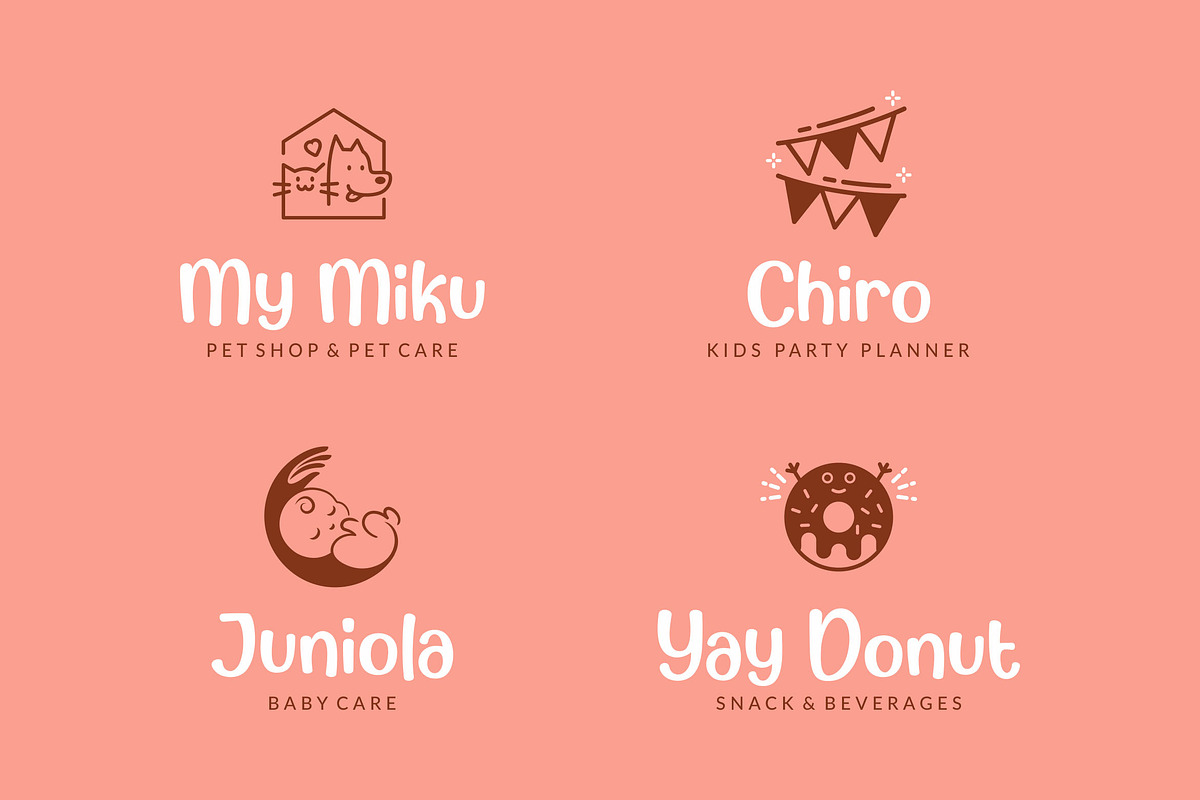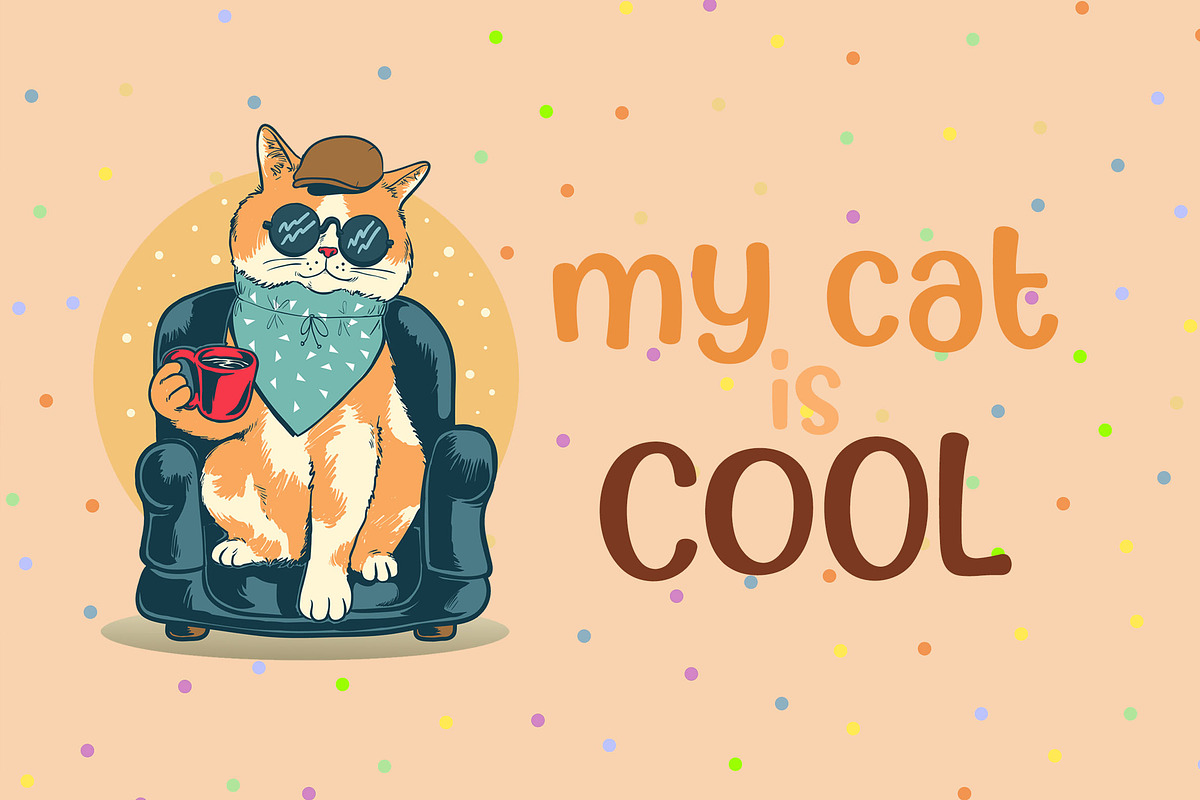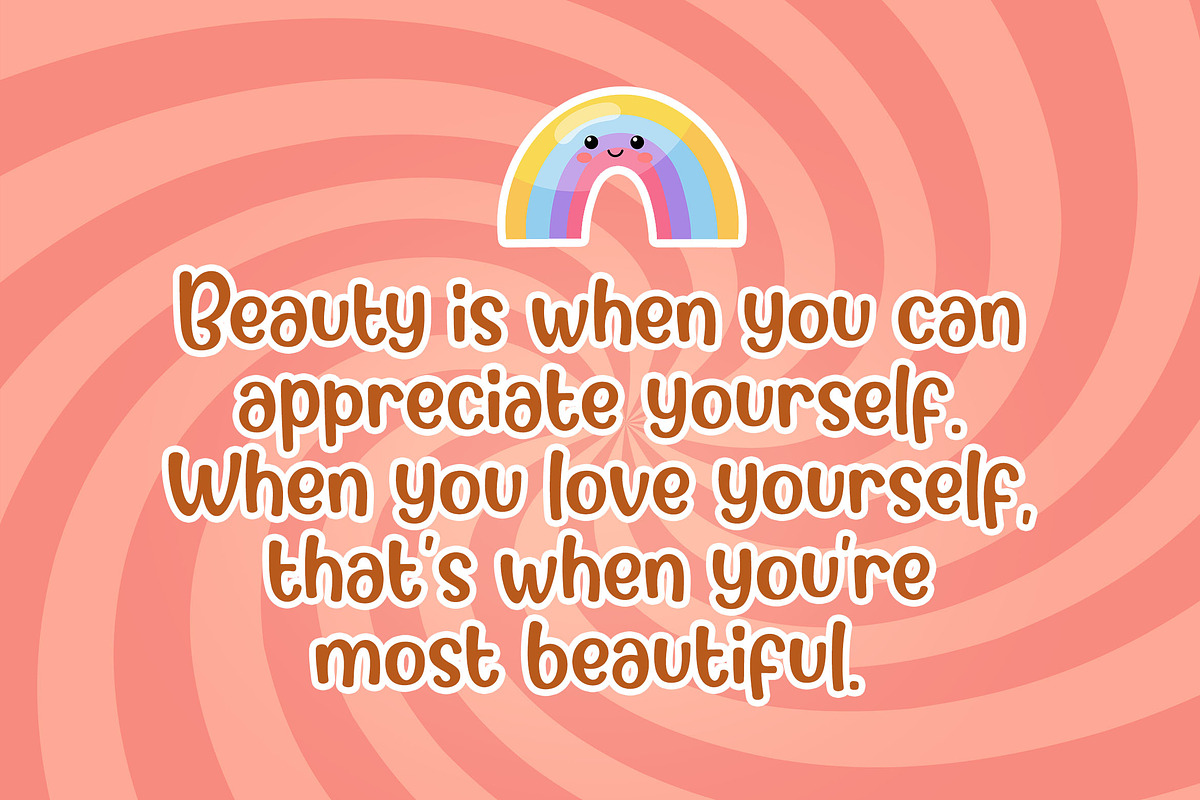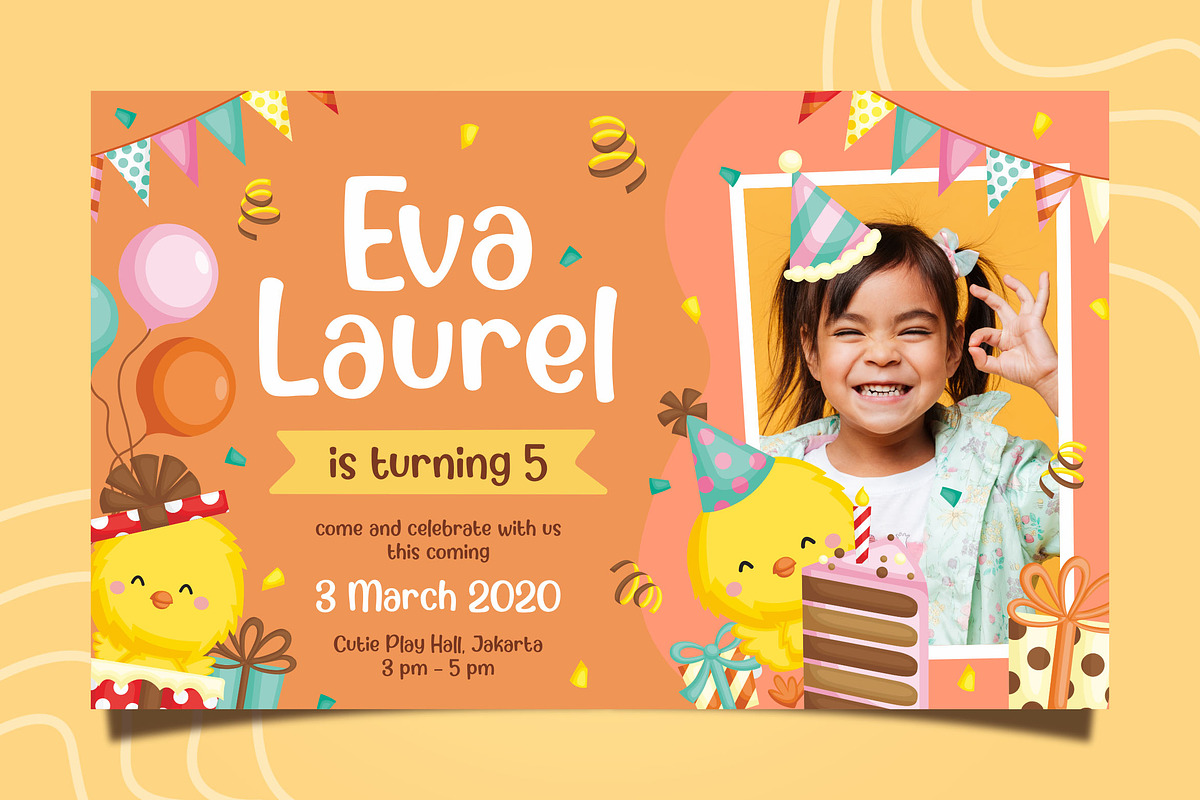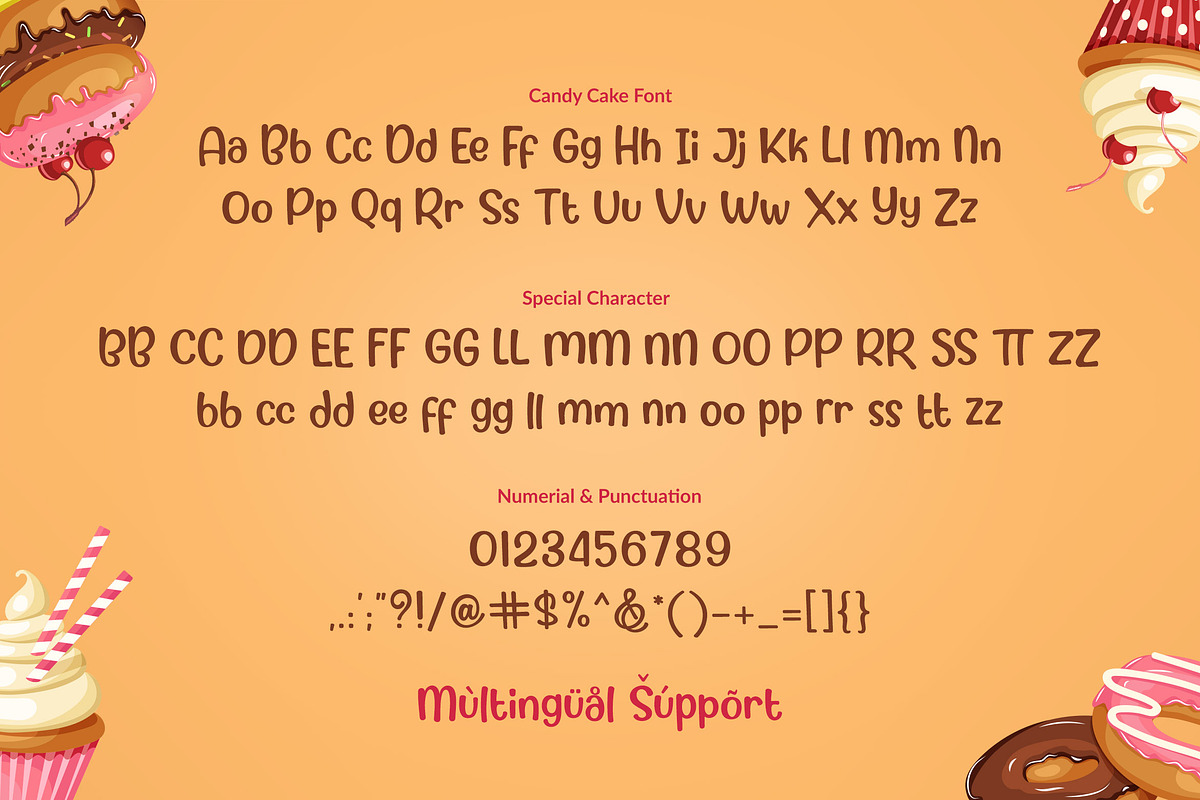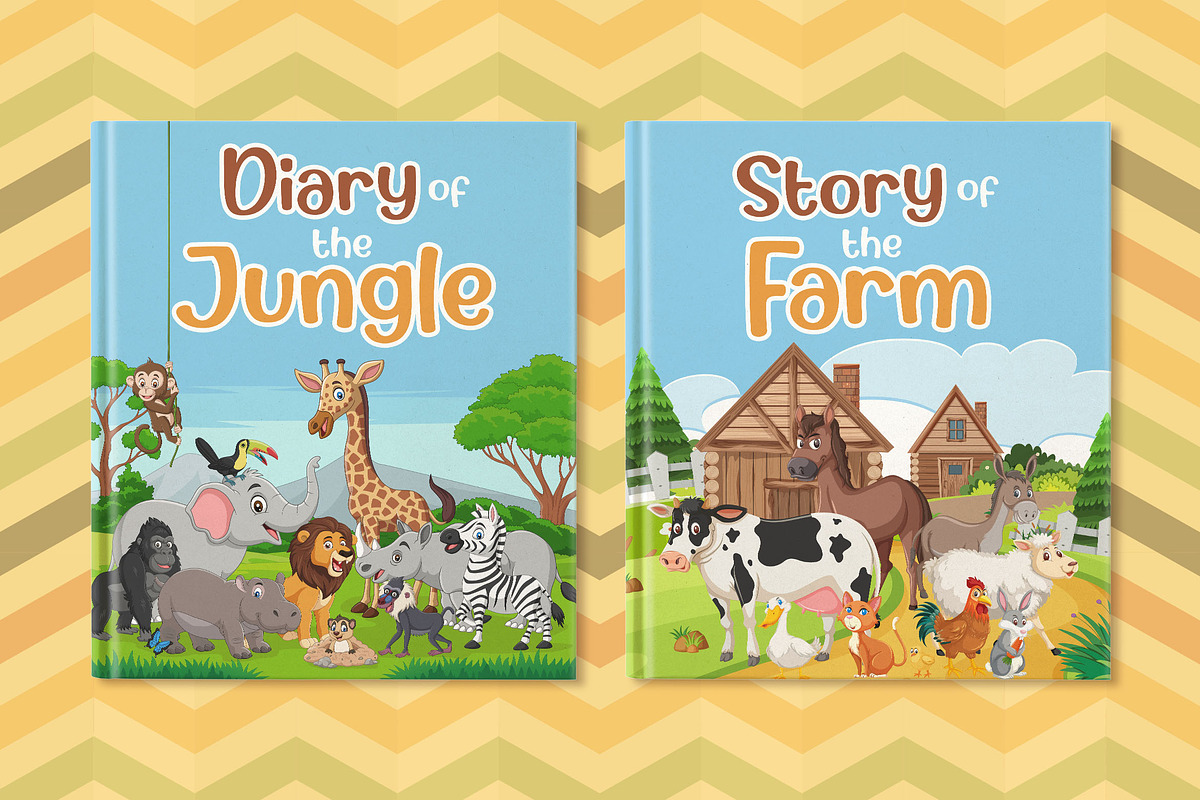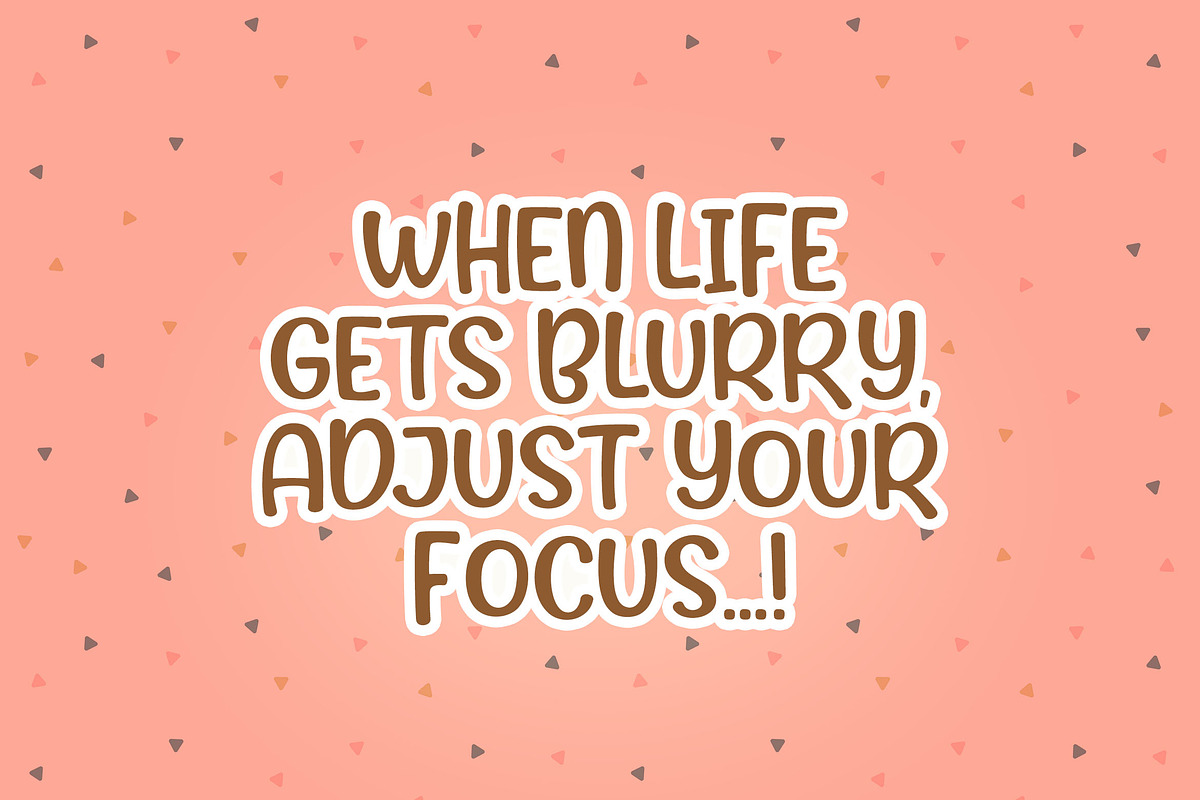
Candy Cake ~ Sweet Font
Candy Cake is a cute and sweet display font. The authentic lovely & fun touch makes it a perfect mates for your projects, in any design purposes.
Candy Cake ~ Sweet Font by Orenari fits naturally into Branding, posters, packaging, typography.